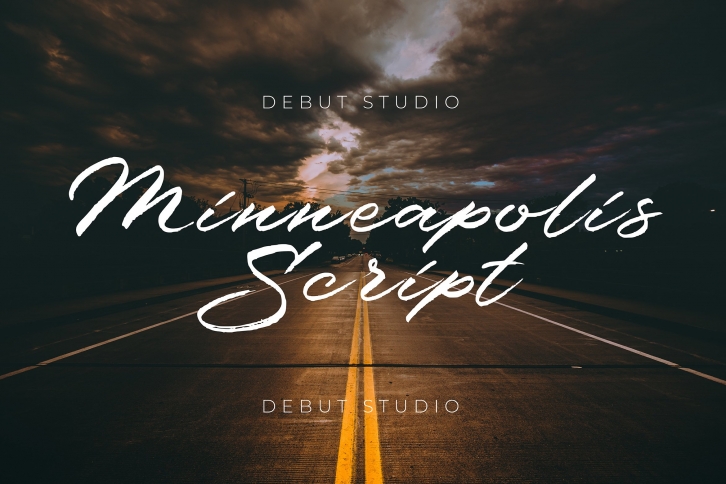
Minneapolis Script is a beautiful font that was designed by Debut Studio. It's a great choice for designers and creatives who need such a font. It was released on January 9, 2021 and the file size is 2.67 MB. Minneapolis Script may give a more youthful, expressive and casual look to your project. It is a very beautiful, refined, elegant, and high-quality font.